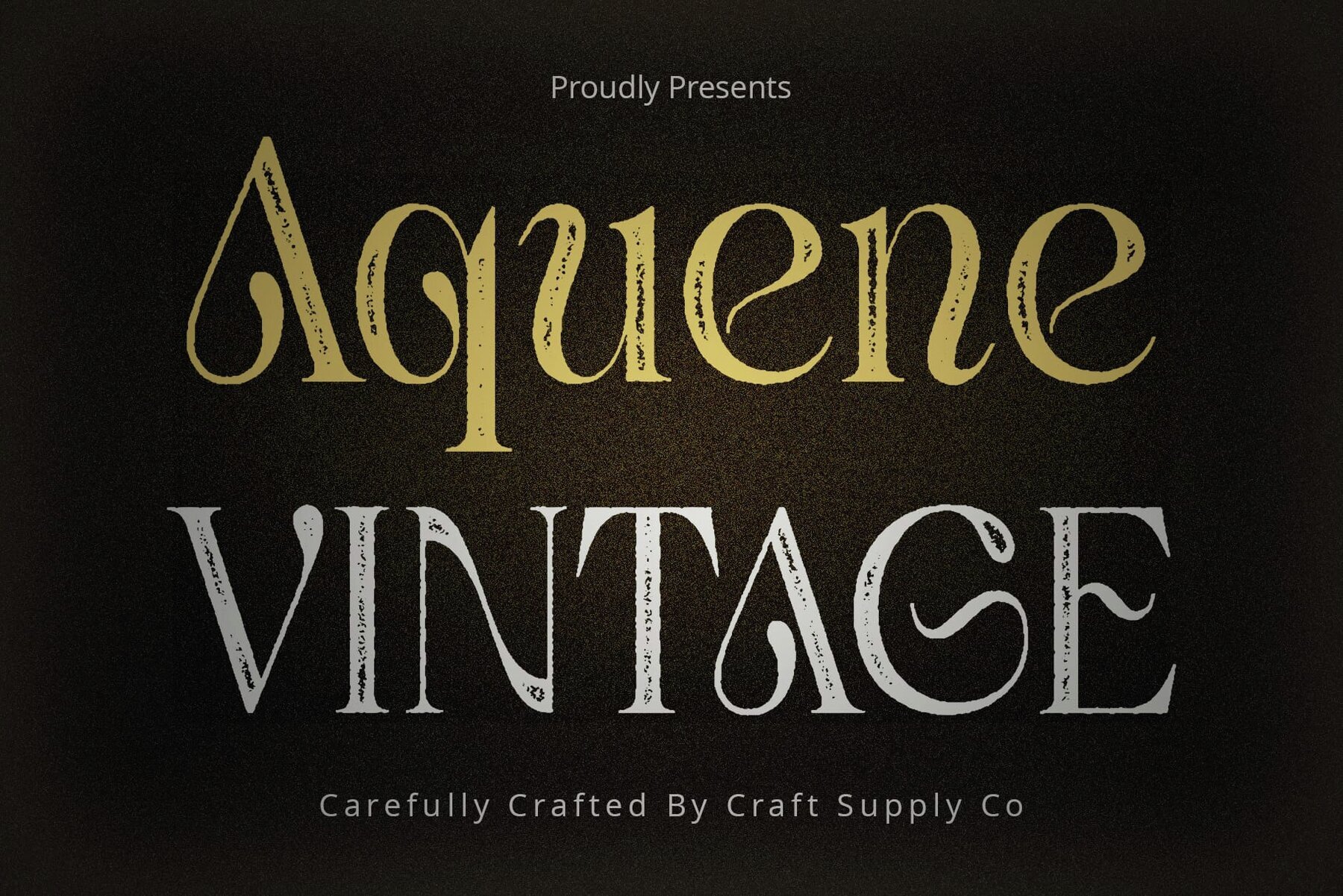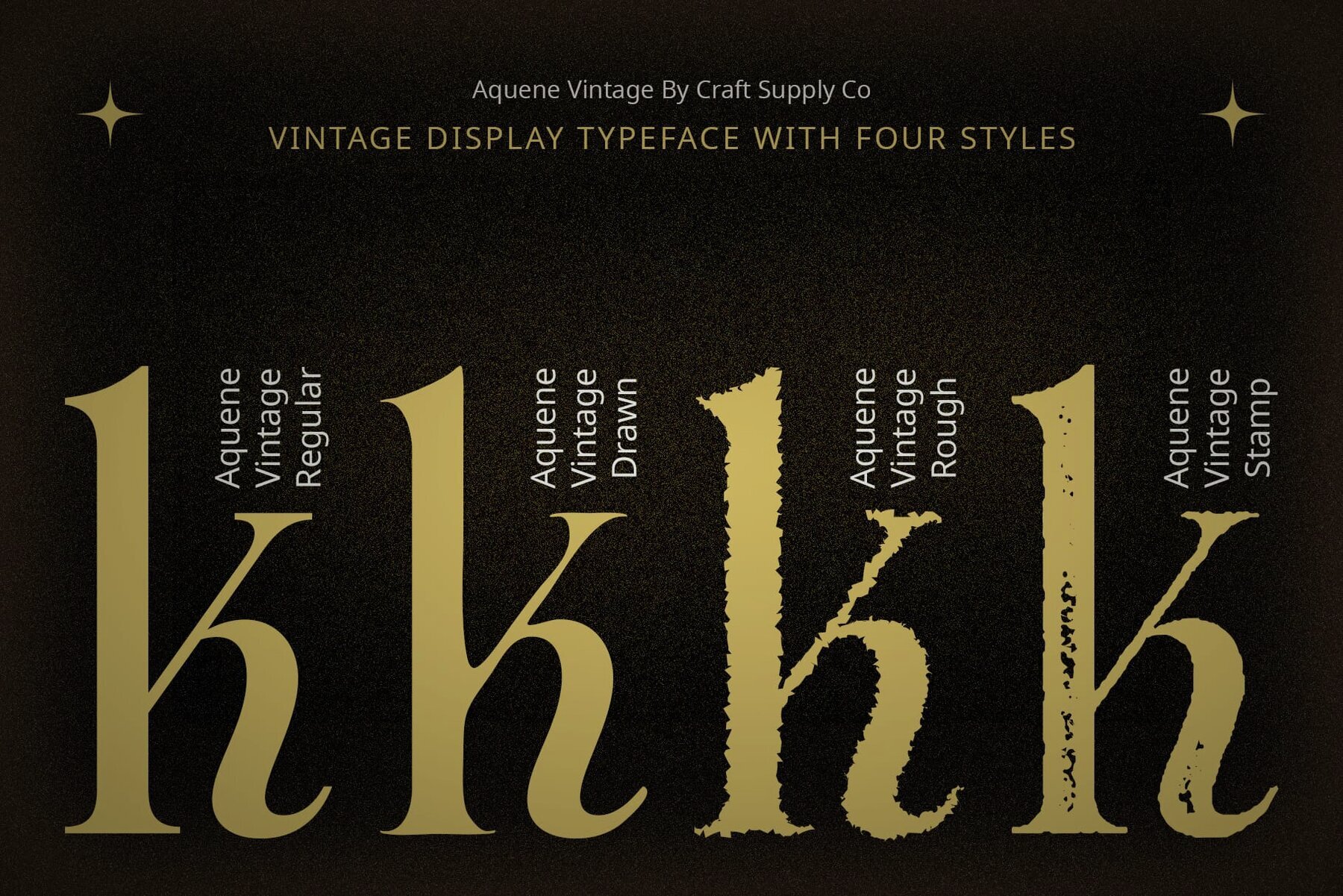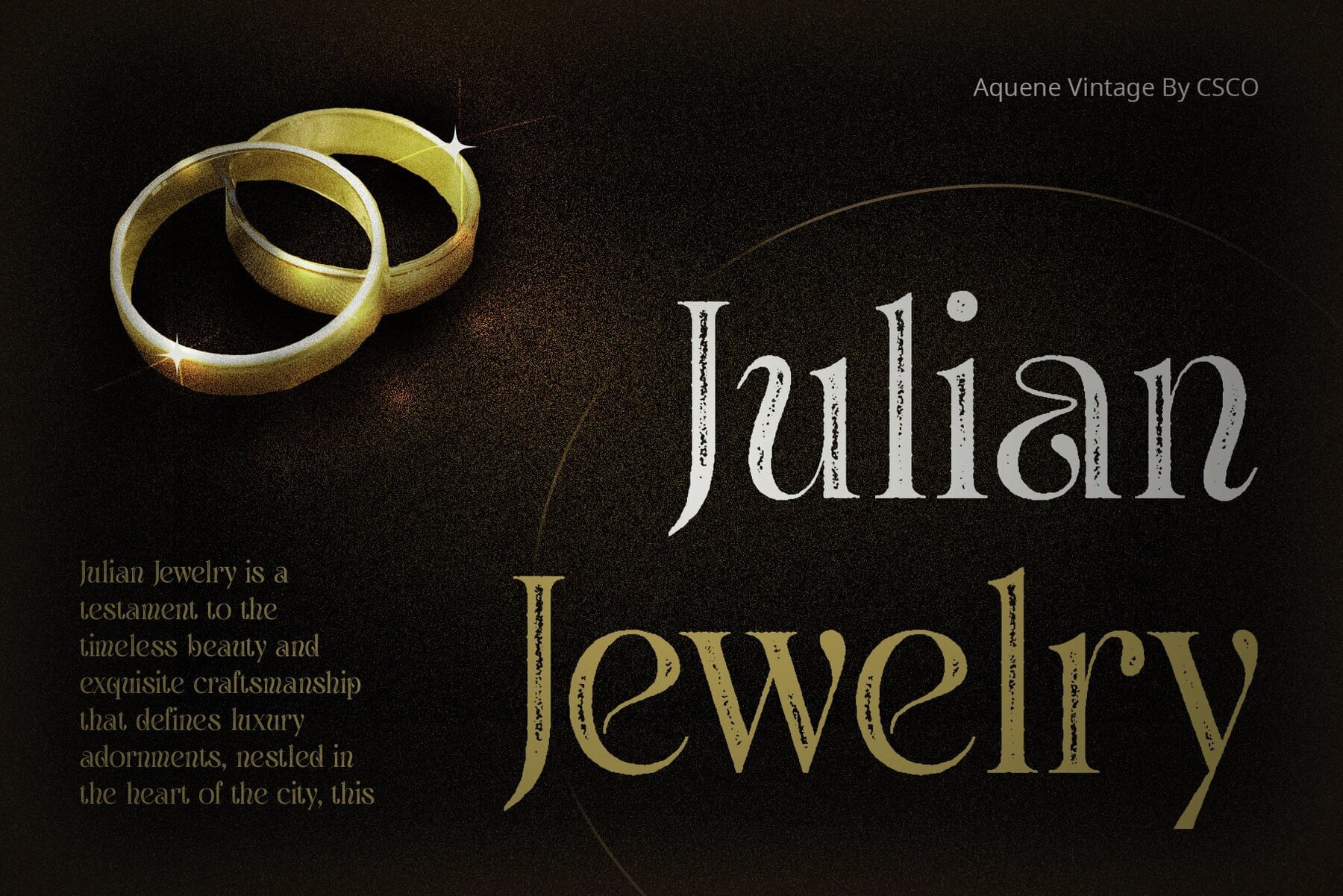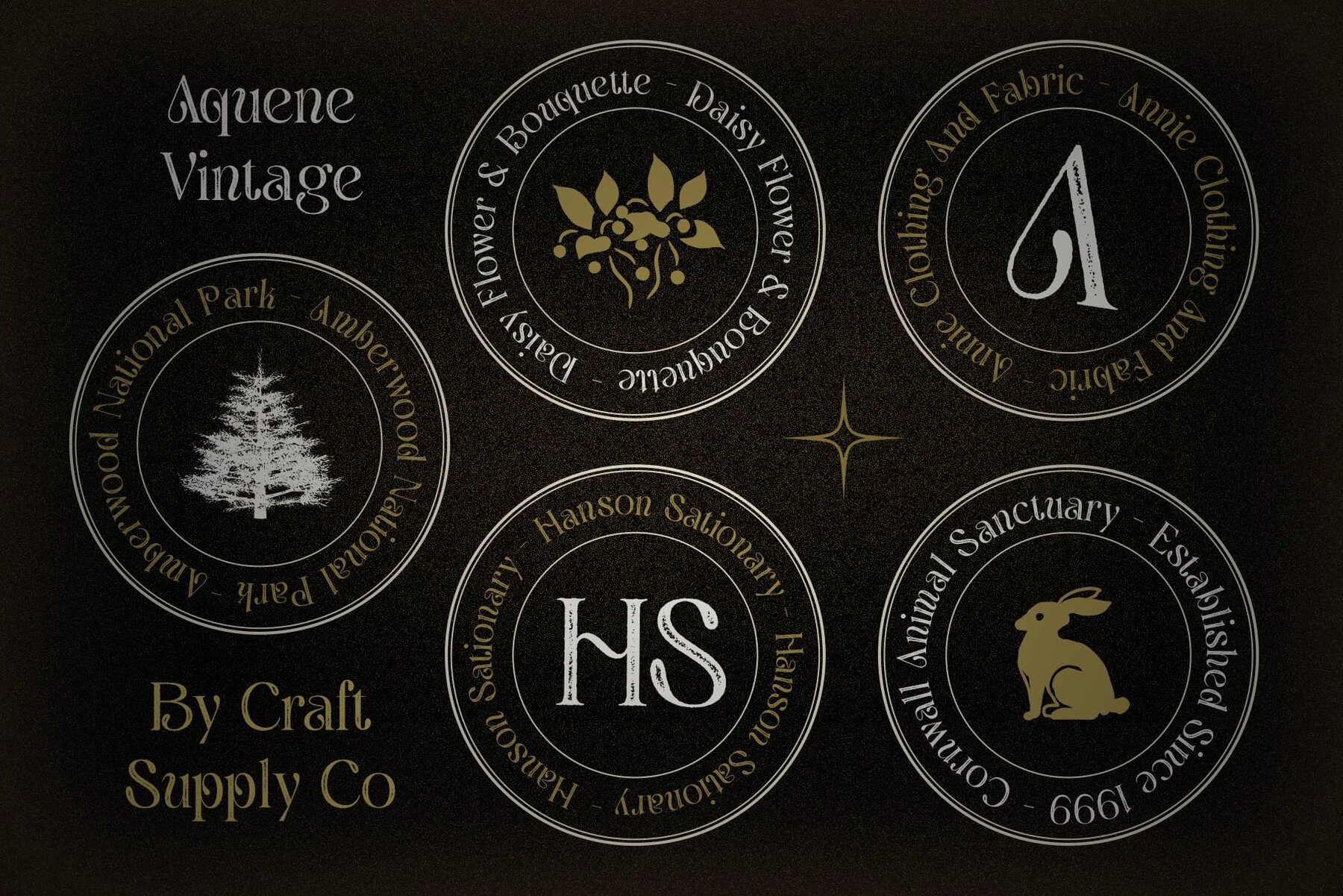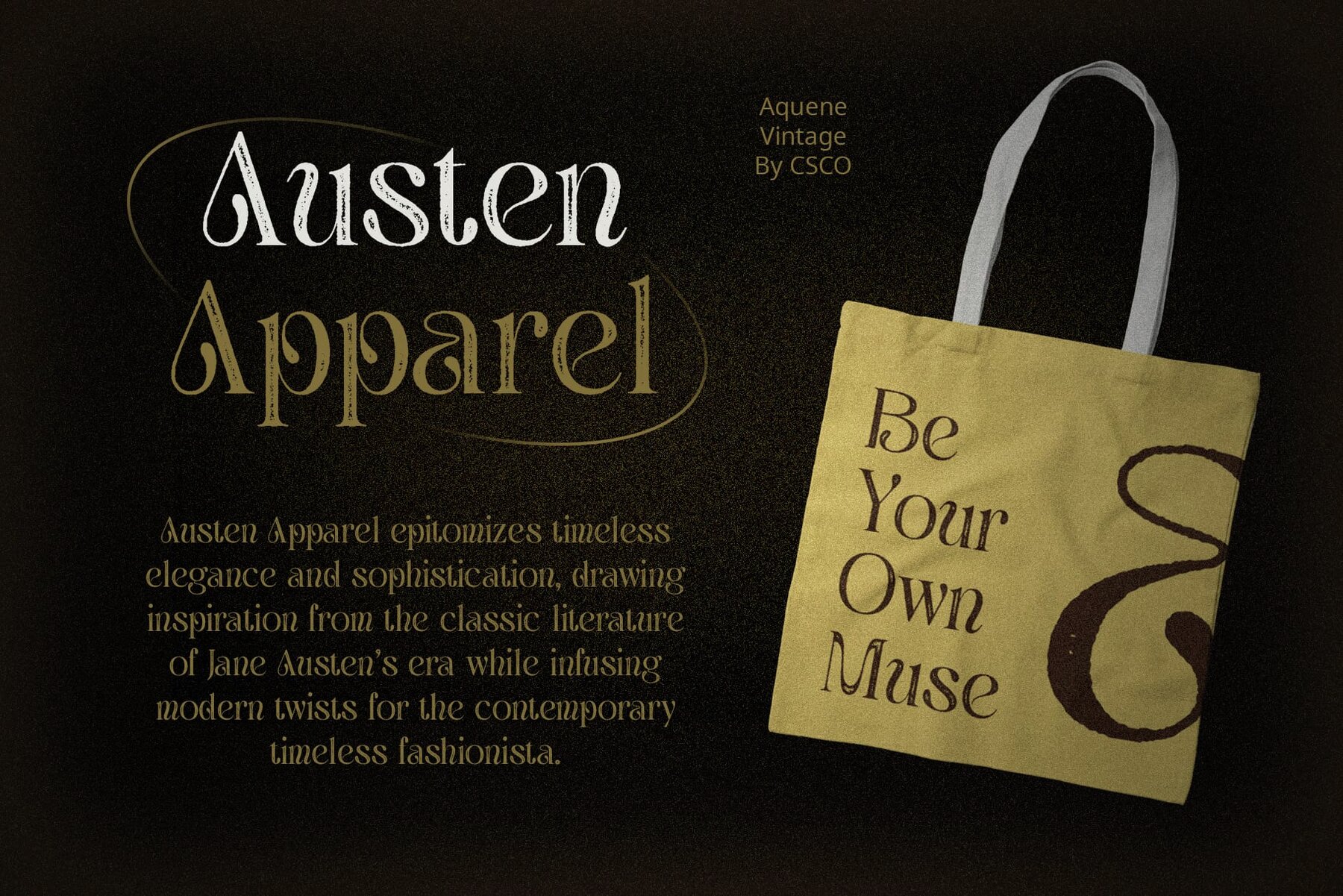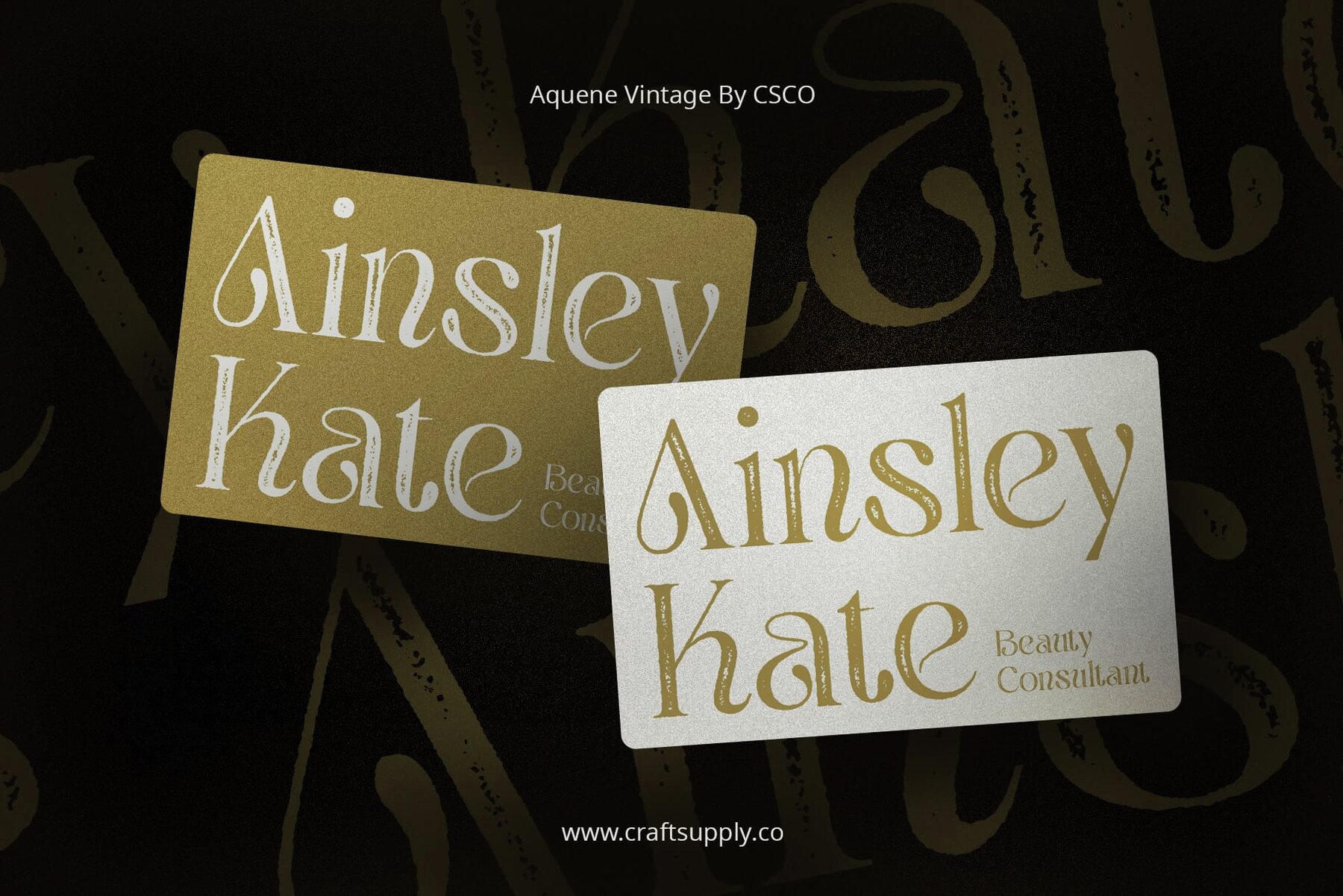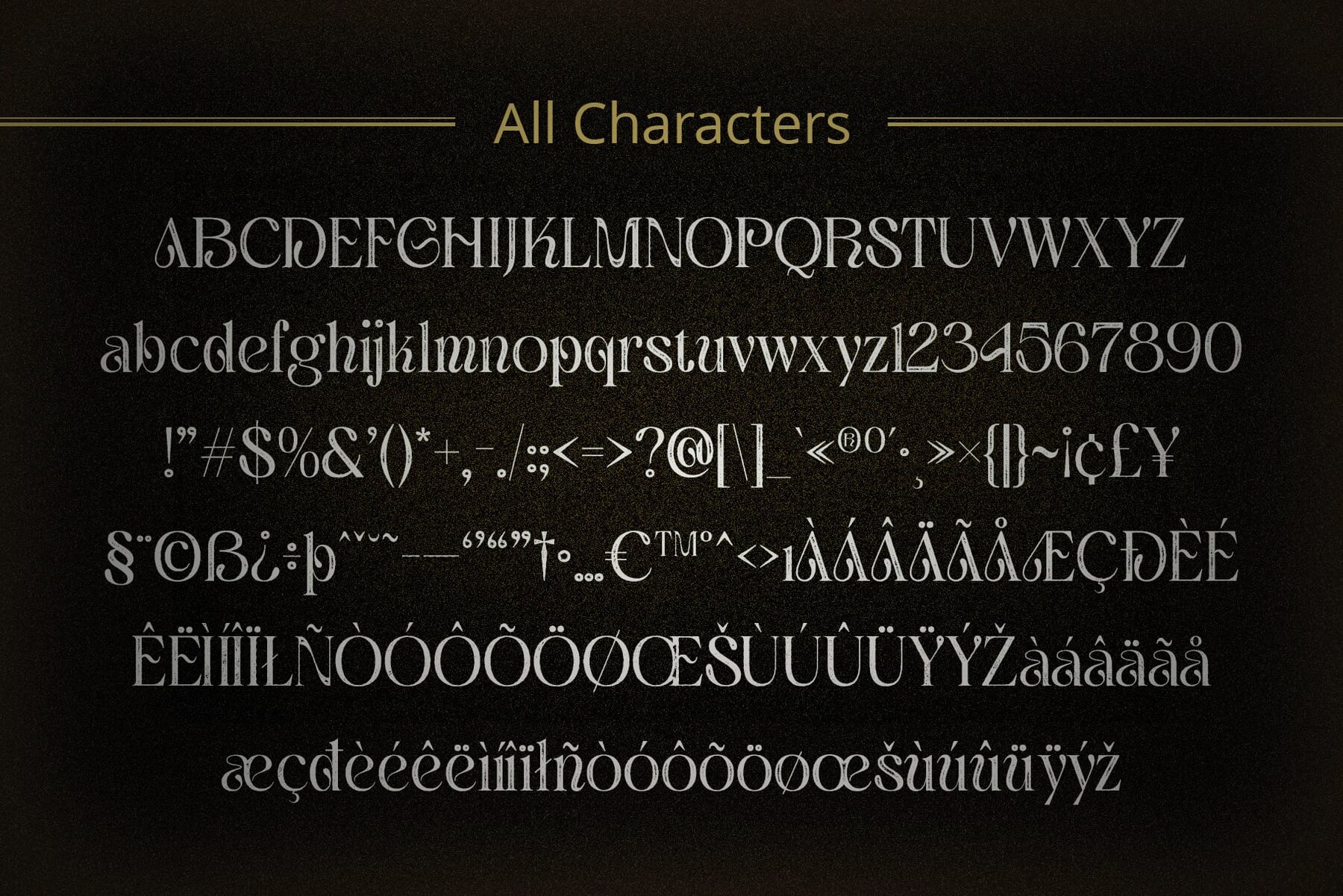
Aquene Vintage Font
Aquene Vintage boasts a distinct serif display design that combines graceful curves and sharp edges for a captivating visual appeal. Its flowing elements add a touch of sophistication, while the vintage stamp, drawn, and rough effects imbue it with rustic charm. Each character carries a sense of history and authenticity, reminiscent of bygone eras, making it perfect for adding a nostalgic flair to your projects.
Despite its vintage-inspired aesthetic, this font is versatile and suited for various applications. From branding and signage to editorial design and packaging, it lends timeless elegance to any project. Classic serif display elements combined with vintage effects result in a font that exudes sophistication. Ideal for bold headlines or subtle accents, it adds a touch of nostalgia and charm to your design endeavors. Features include uppercase and lowercase characters, numerals, punctuation, accents supporting multilingual characters, and PUA encoding.